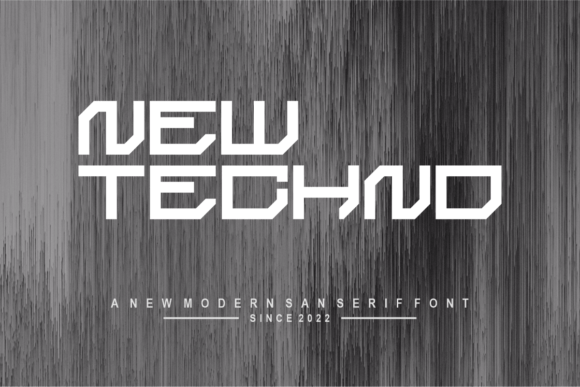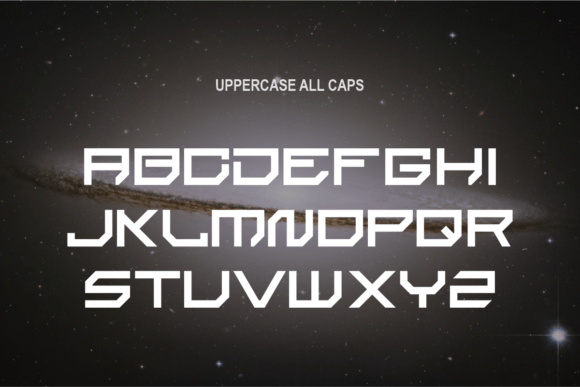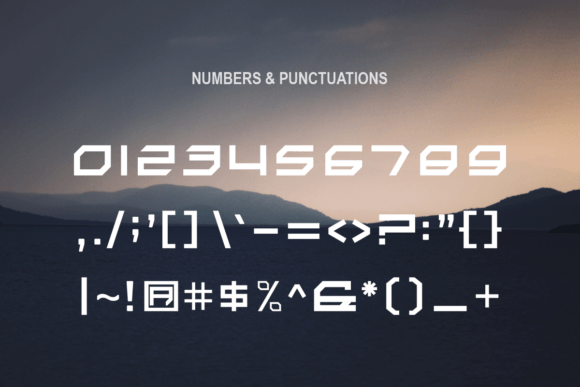
Introduction to Progbe Font
Progbe is a sweet and elegant sans serif font perfect for logos, branding, quotes, clothing, tote bags, business cards, websites, and many more.
Fall in love with it, and let it take your projects to the highest level .
Progbe Font offers exceptional quality and versatility, making it a valuable addition to your design toolkit. Whether you’re creating for personal projects or commercial use, Progbe Font delivers professional results.